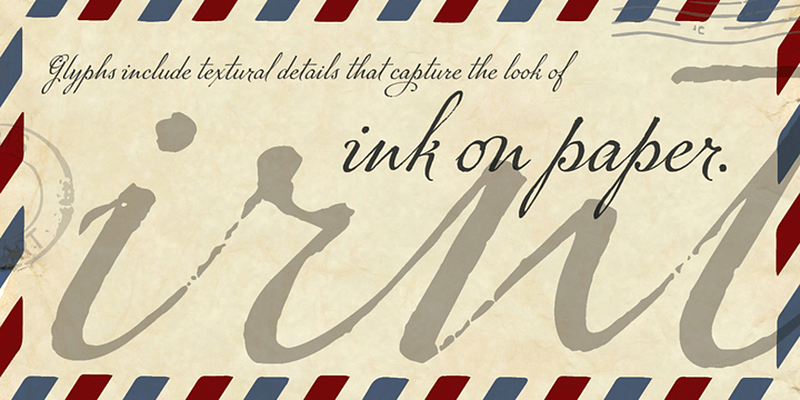
P22 Marcel
P22 Marcel is named in honor of Marcel Heuzé, a Frenchman who was conscripted into labor during World War II, whose wartime letters were the basis for this highly readable running script.